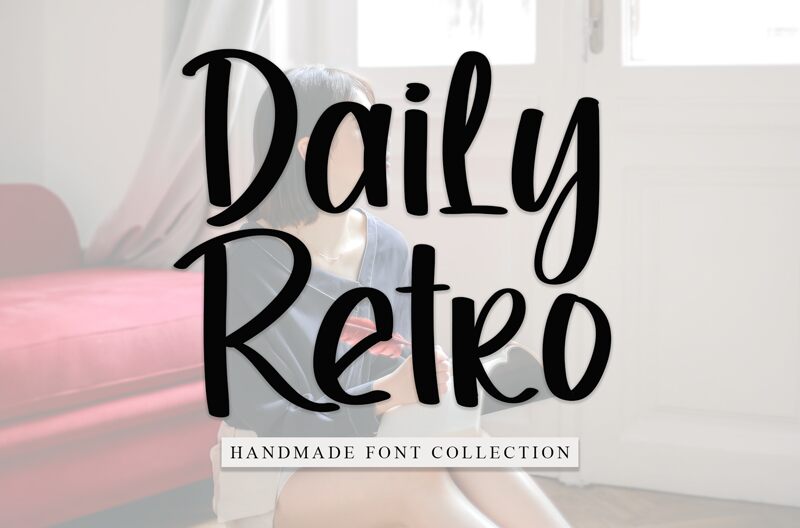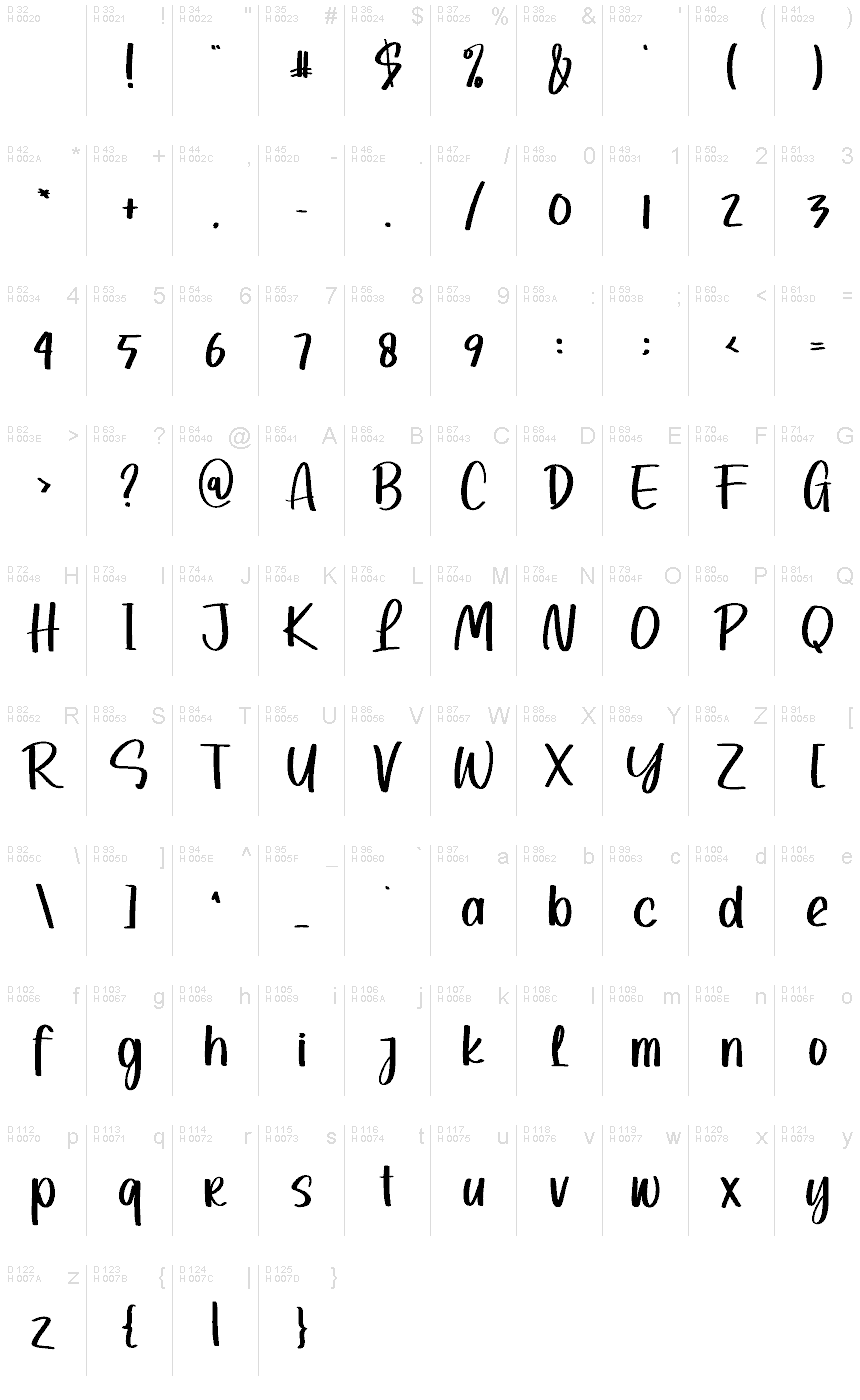
Daily Retro
Daily Retro font by Creatype Designer effortlessly blends a refined classic influence with a contemporary flair. This expressive handwritten style showcases a casual aesthetic and vintage feel, combined with retro charm for added versatility. A beautiful and artistic texture captures the attention and adds visual interest to any creative destination.